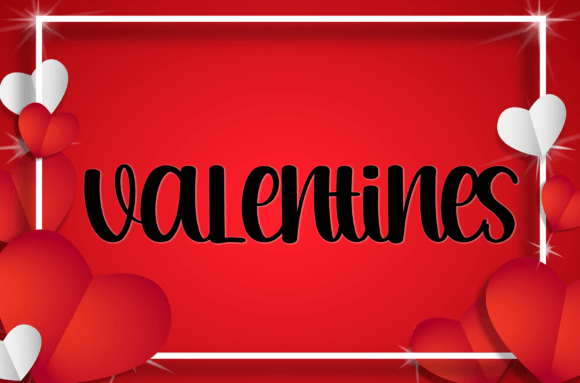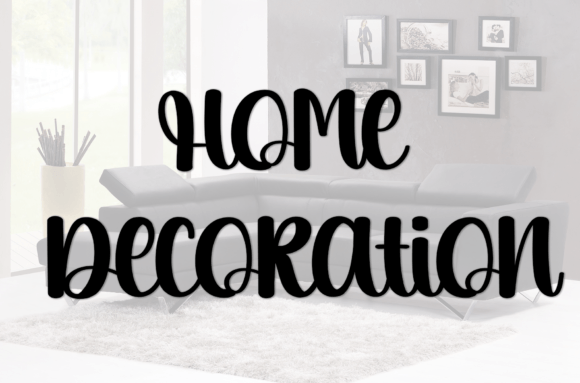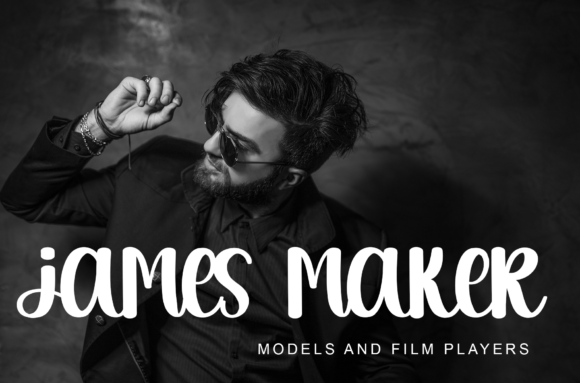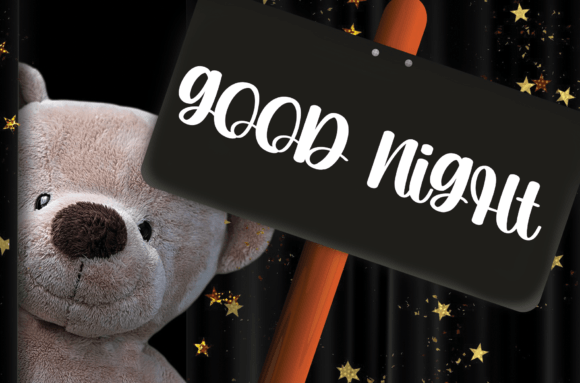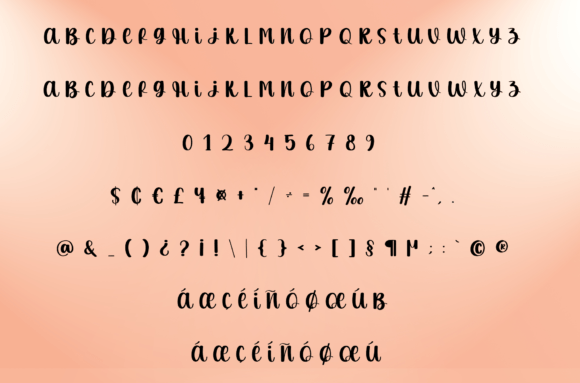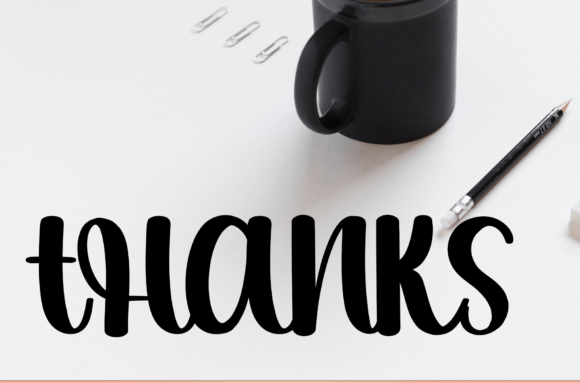
Winter Font
About Winter Font
Winter is a sweet and friendly handwritten font. Fun and relaxed, this font is ideal for writing wedding invitations, cards, or any other design that might need a joyful touch!